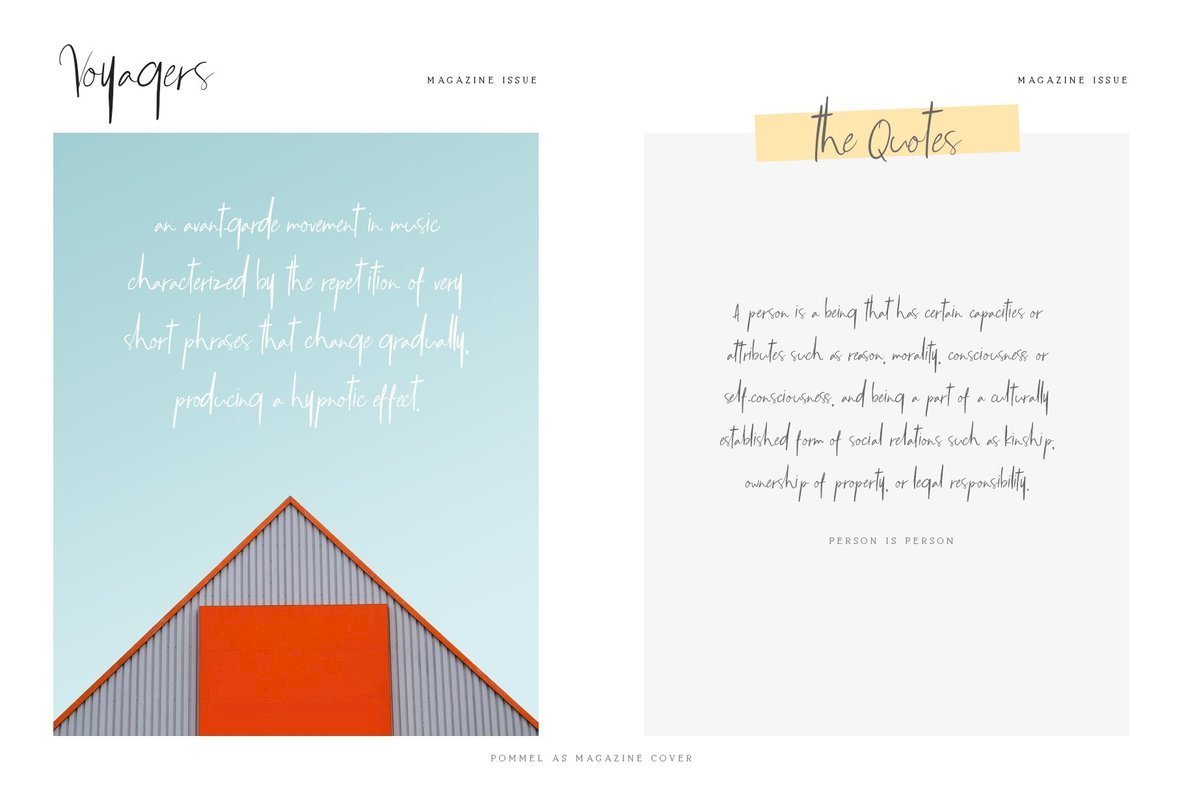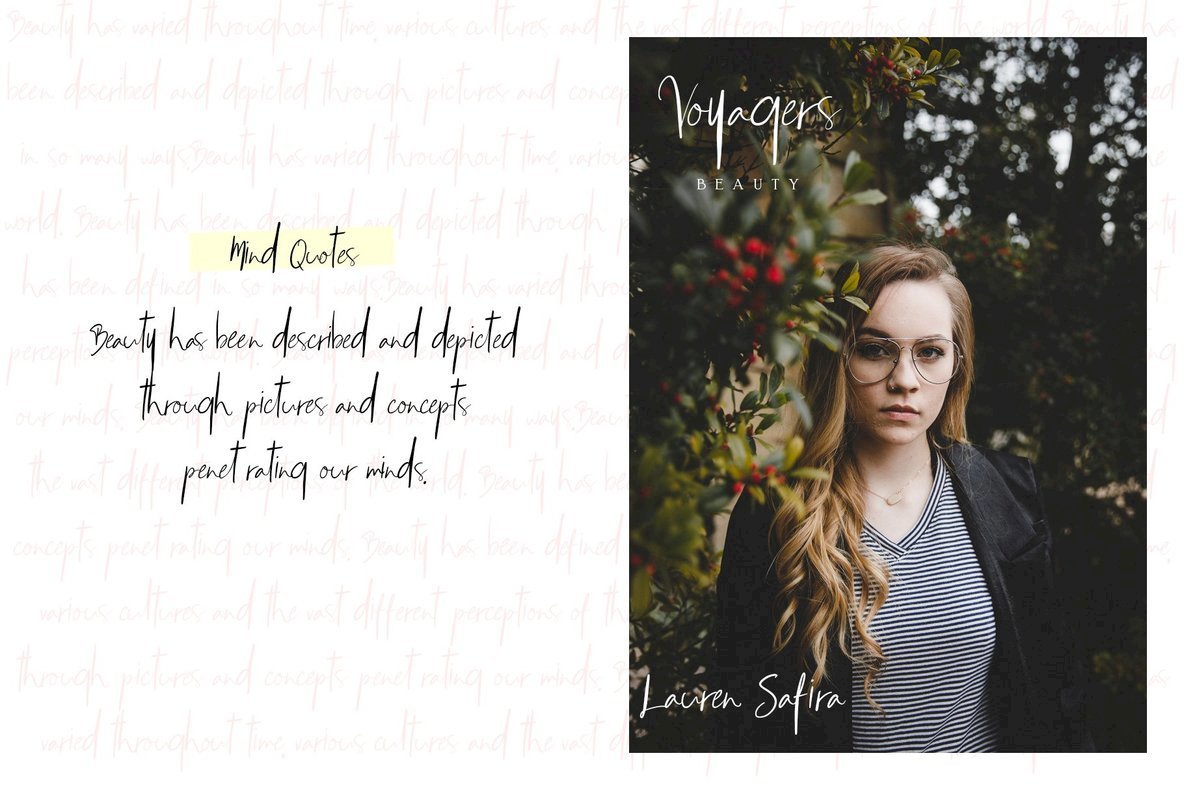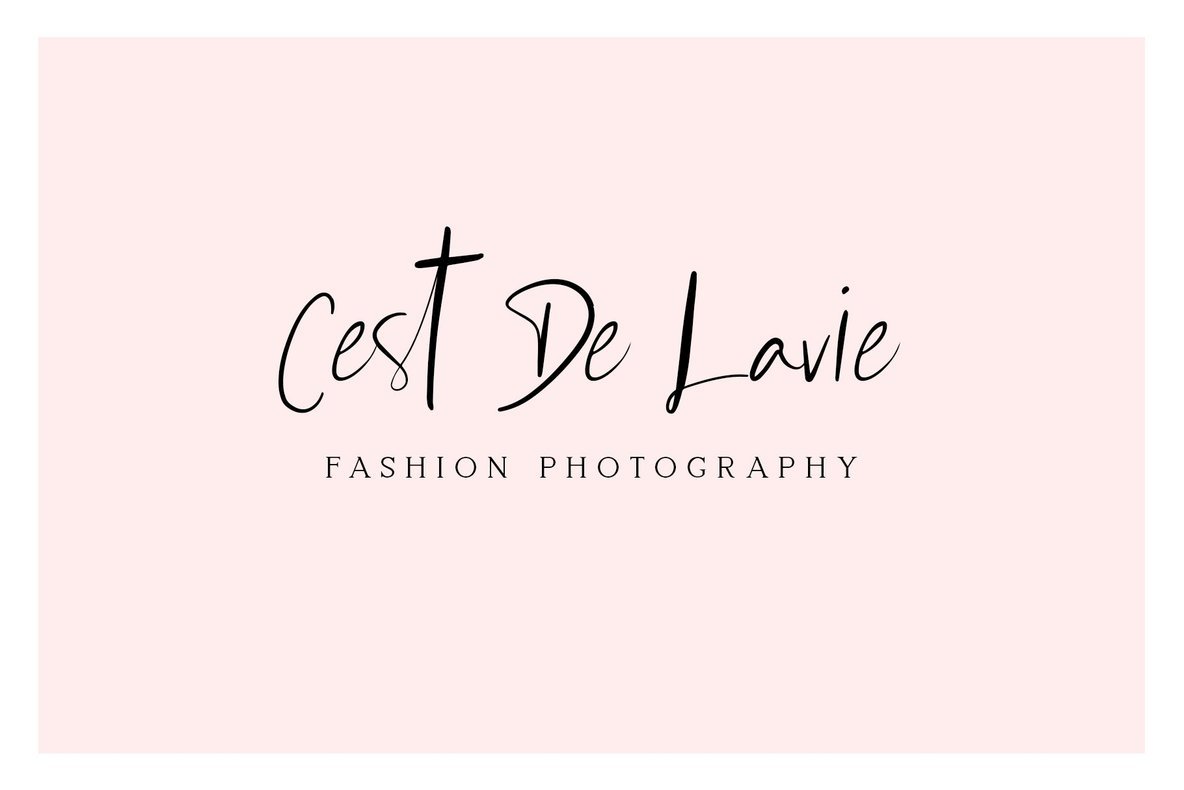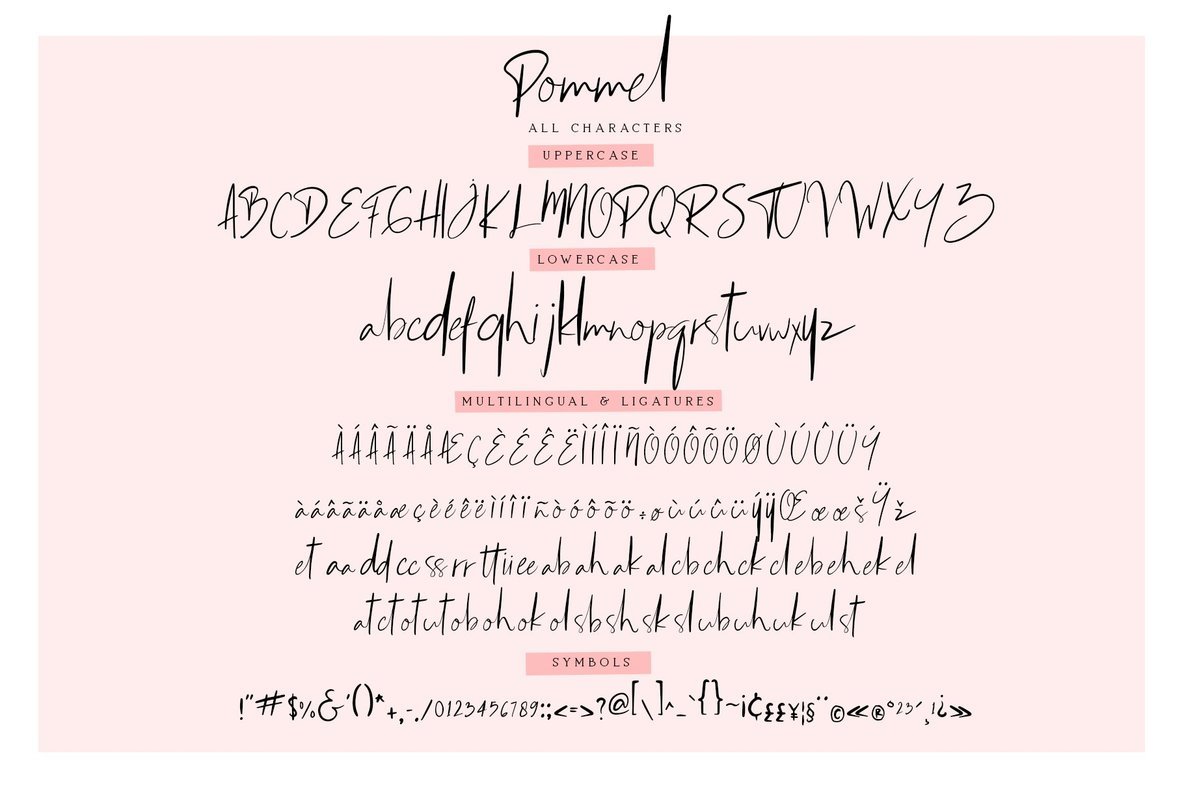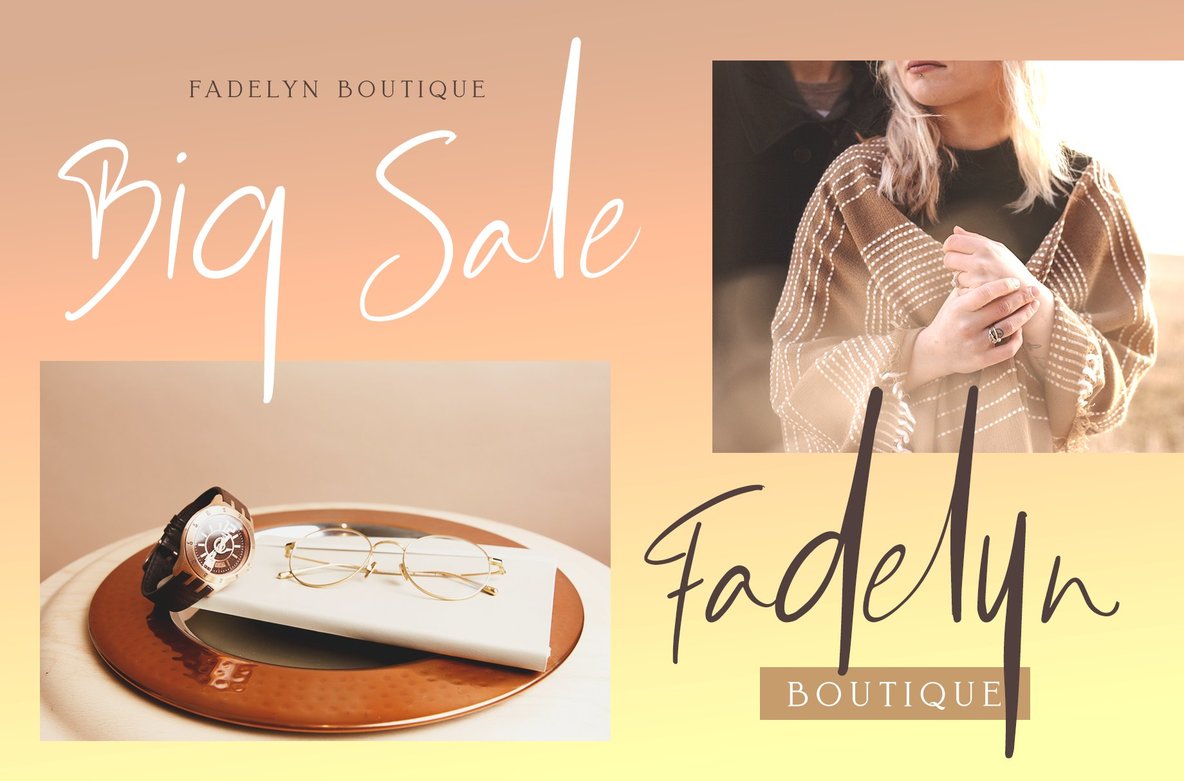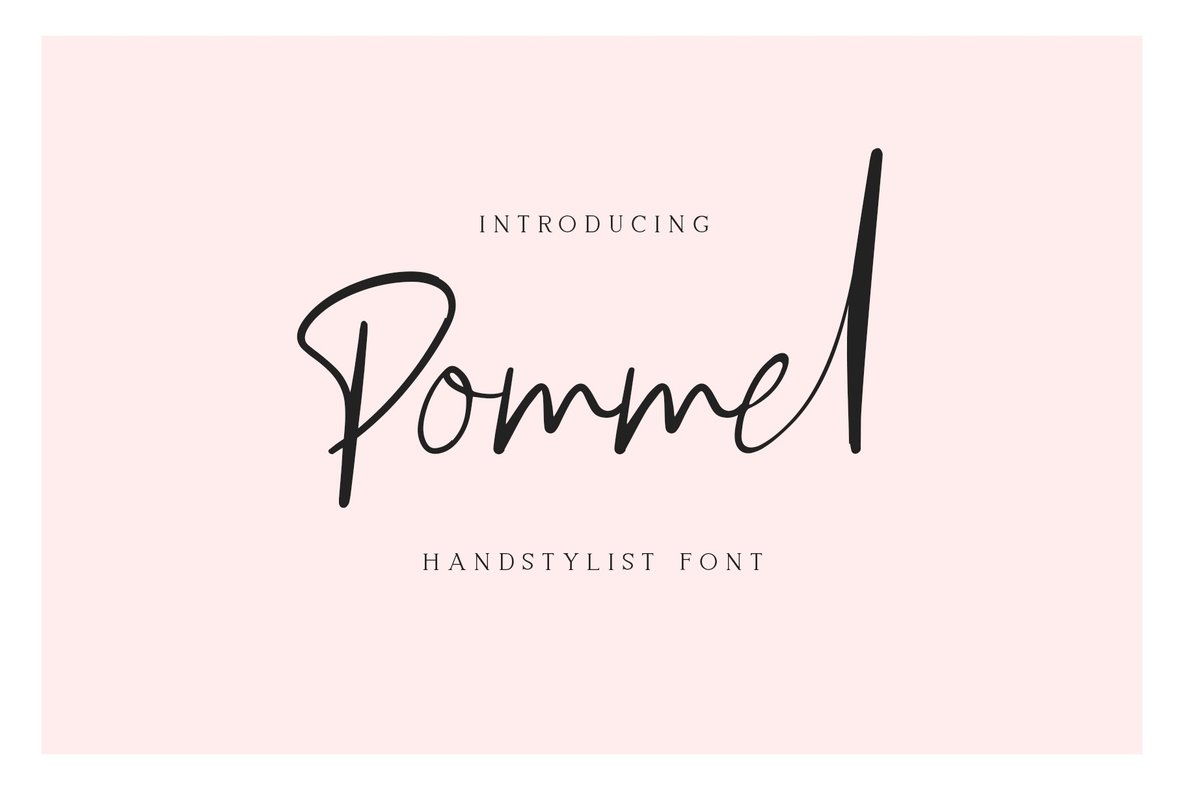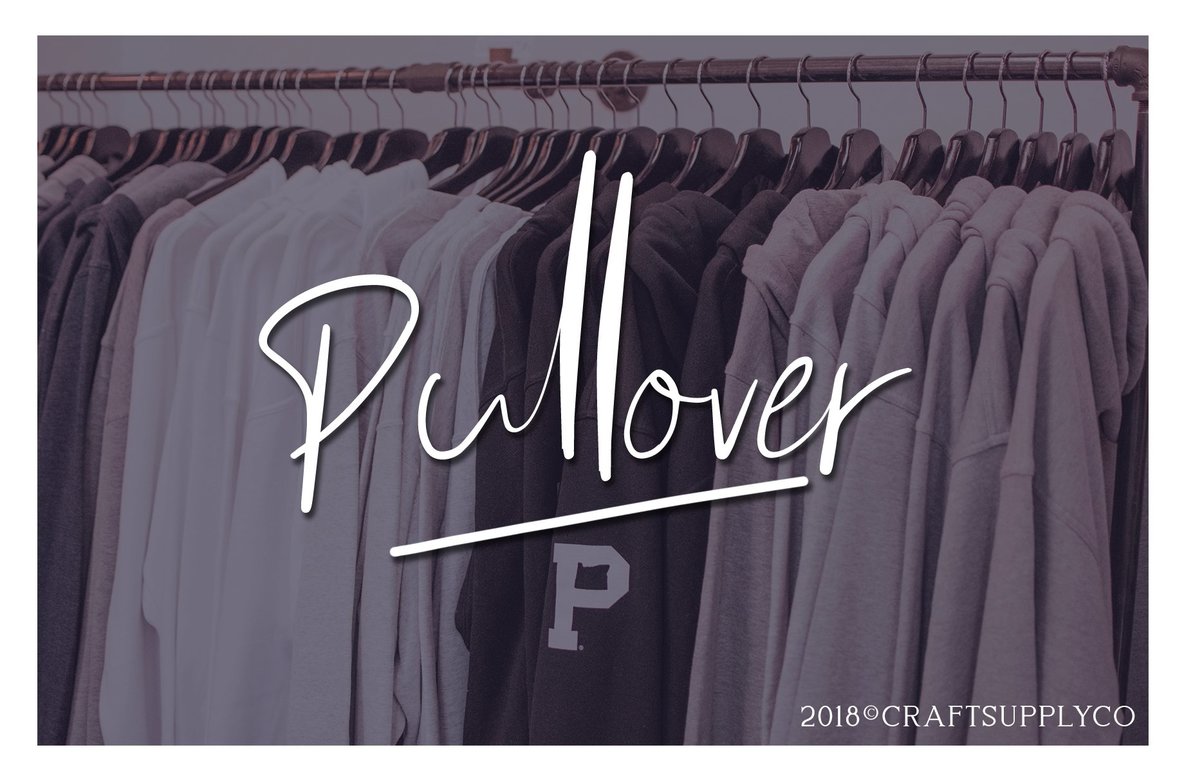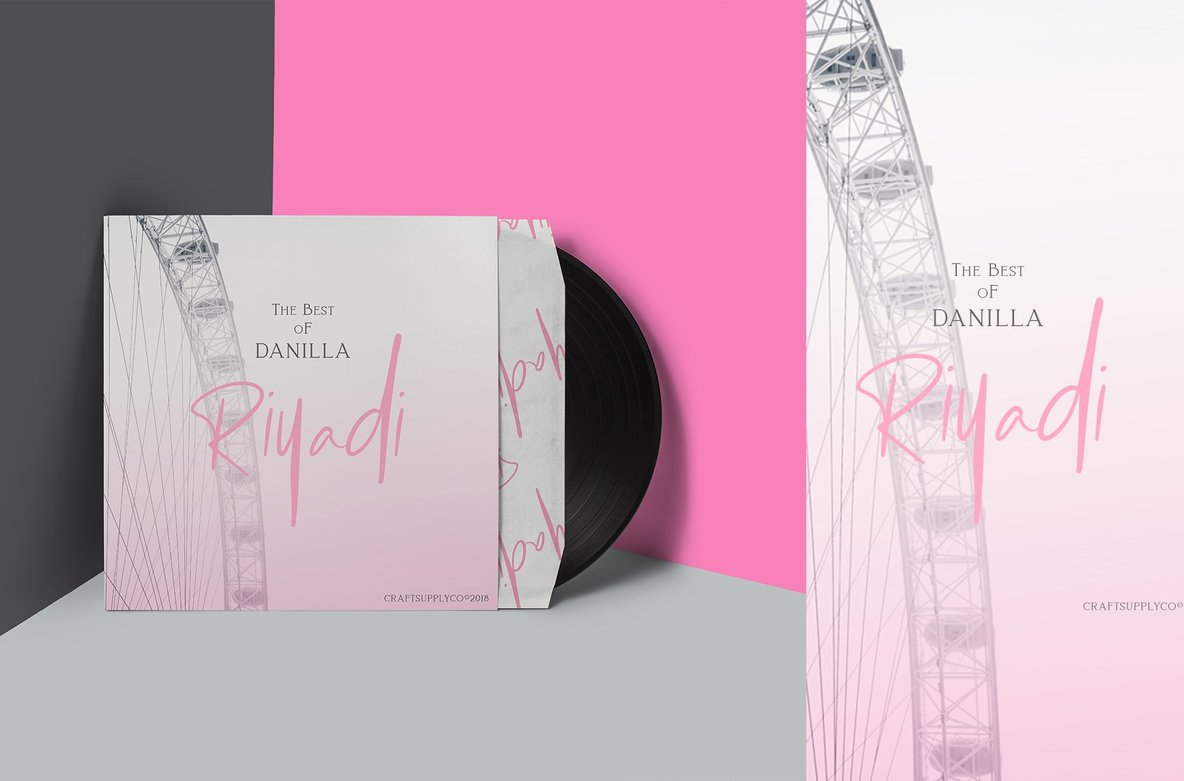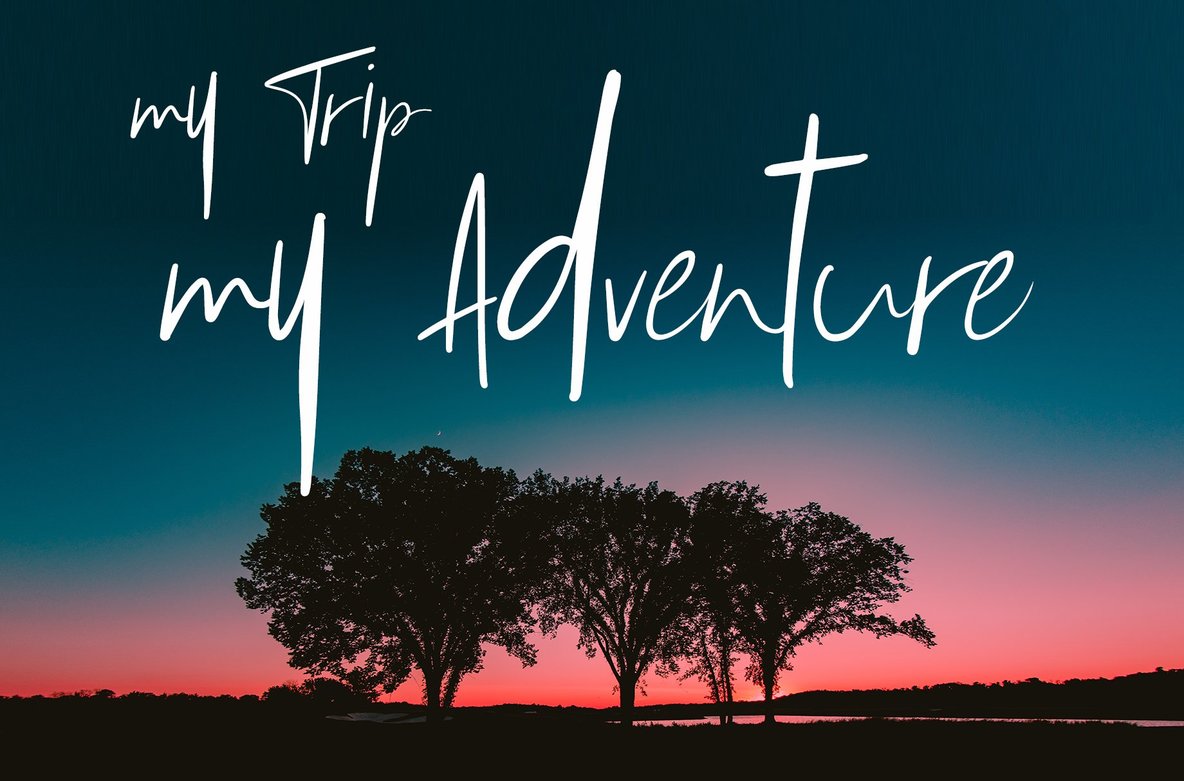
Pommel Font
Pommel
Combining the fluidity of real handwriting with a modern aesthetic, Pommel Handstylish Font by Craft Supply Co. is a versatile script that captures chic sophistication. Ideal for fashion and e-commerce brands, it brings an elegant flair to wedding boutiques, trend blogs, and upscale businesses looking to make a refined statement. The font’s delicate strokes enhance logos, greeting cards, and quotes, adding a touch of elegance to posters, branding, and stationery. Whether gracing a blog header with artful typography or serving as the focal point in a design title or book cover, Pommel seamlessly adapts to styles like hand-drawn or watercolor themes. Perfect for DIY projects and artful design applications, it ensures your project exudes charm and contemporary style.Pommel Handstylish Font: Effortless Elegance in Script